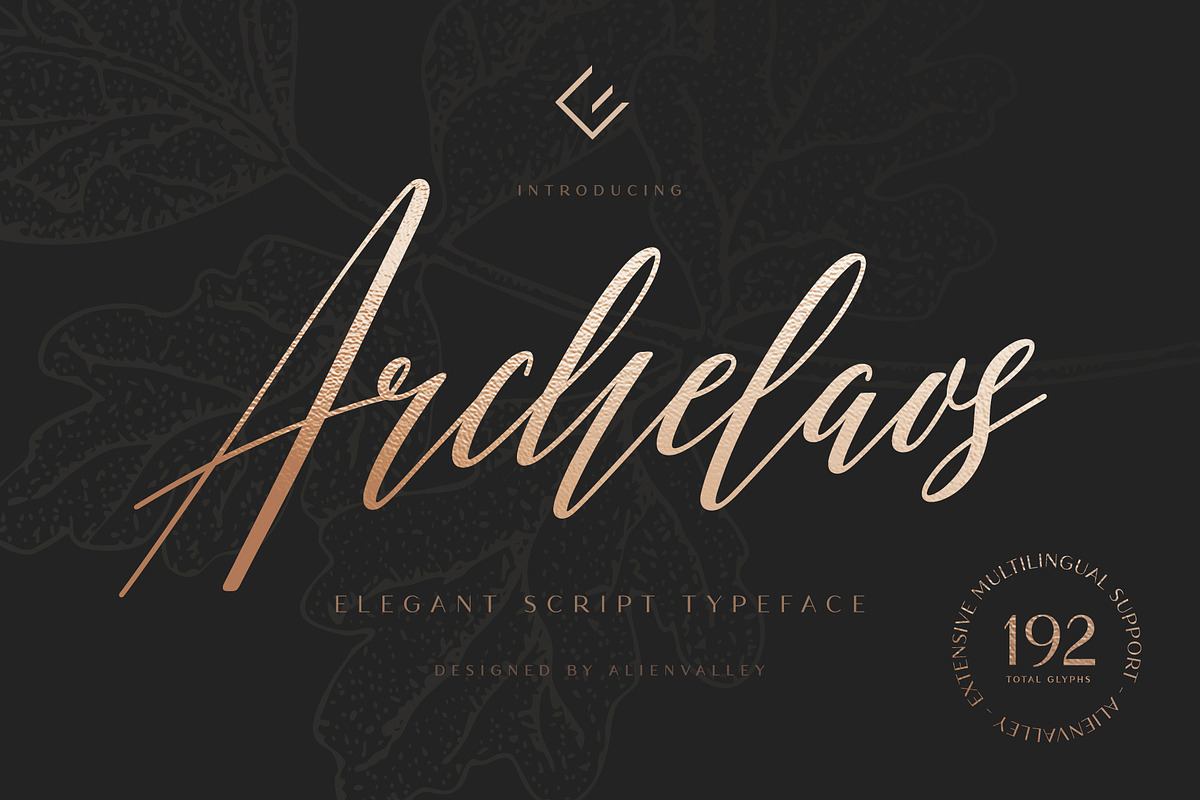
Archelaos - Elegant Script Font Free Download
Archelaos - Elegant Script Font Free Download is a sophisticated and refined handwritten script typeface designed to bring elegance and style to your creative projects. With its flowing, smooth curves and delicate letterforms, this font is perfect for high-end branding, wedding invitations, logos, fashion-related designs, and any project that requires a personal, stylish touch.
The graceful and timeless appearance of Archelaos adds luxury and personality to your typography, making it ideal for both formal and informal projects. Whether you're designing for a premium brand or a chic event, this font brings an artistic, handcrafted feel to your designs.